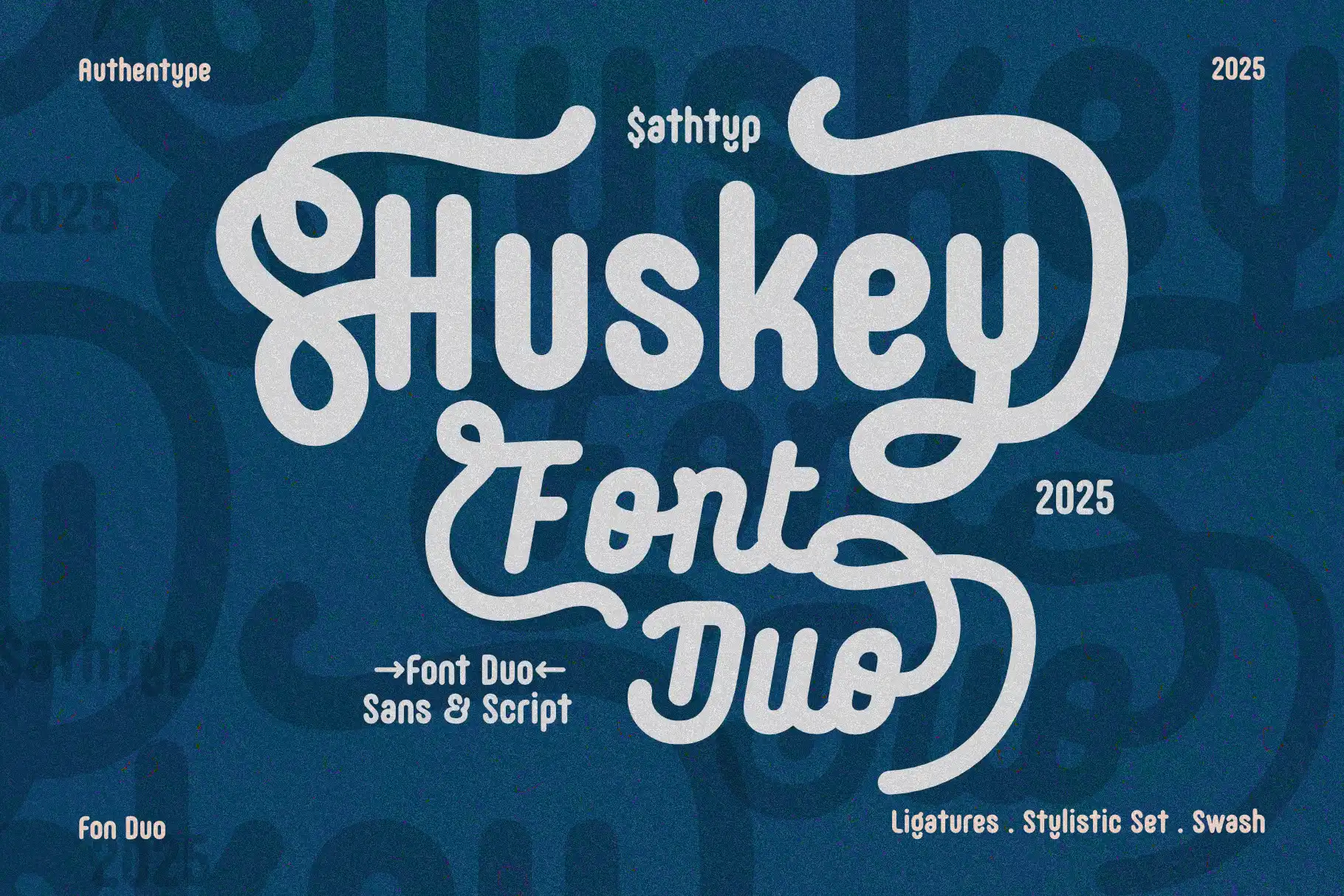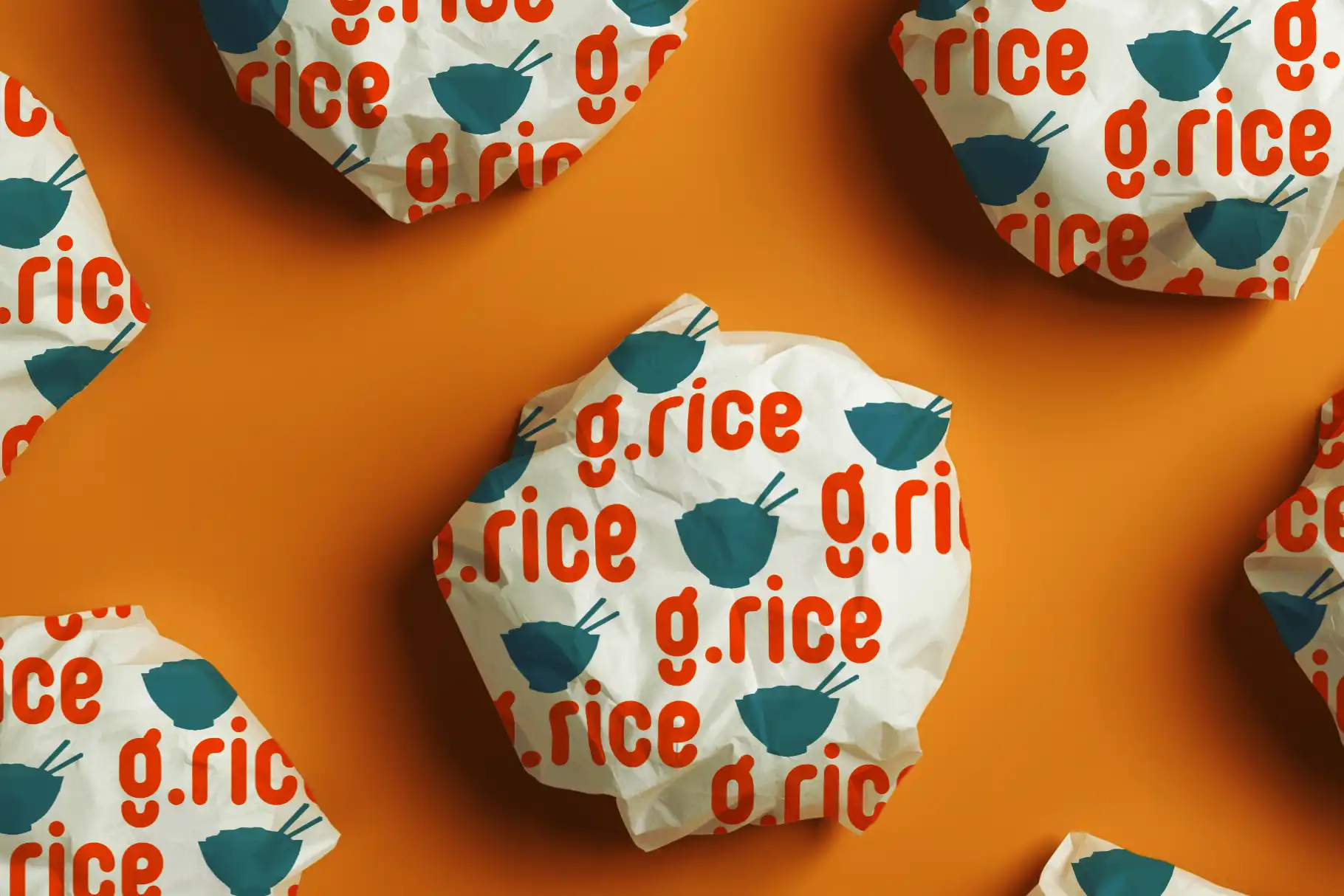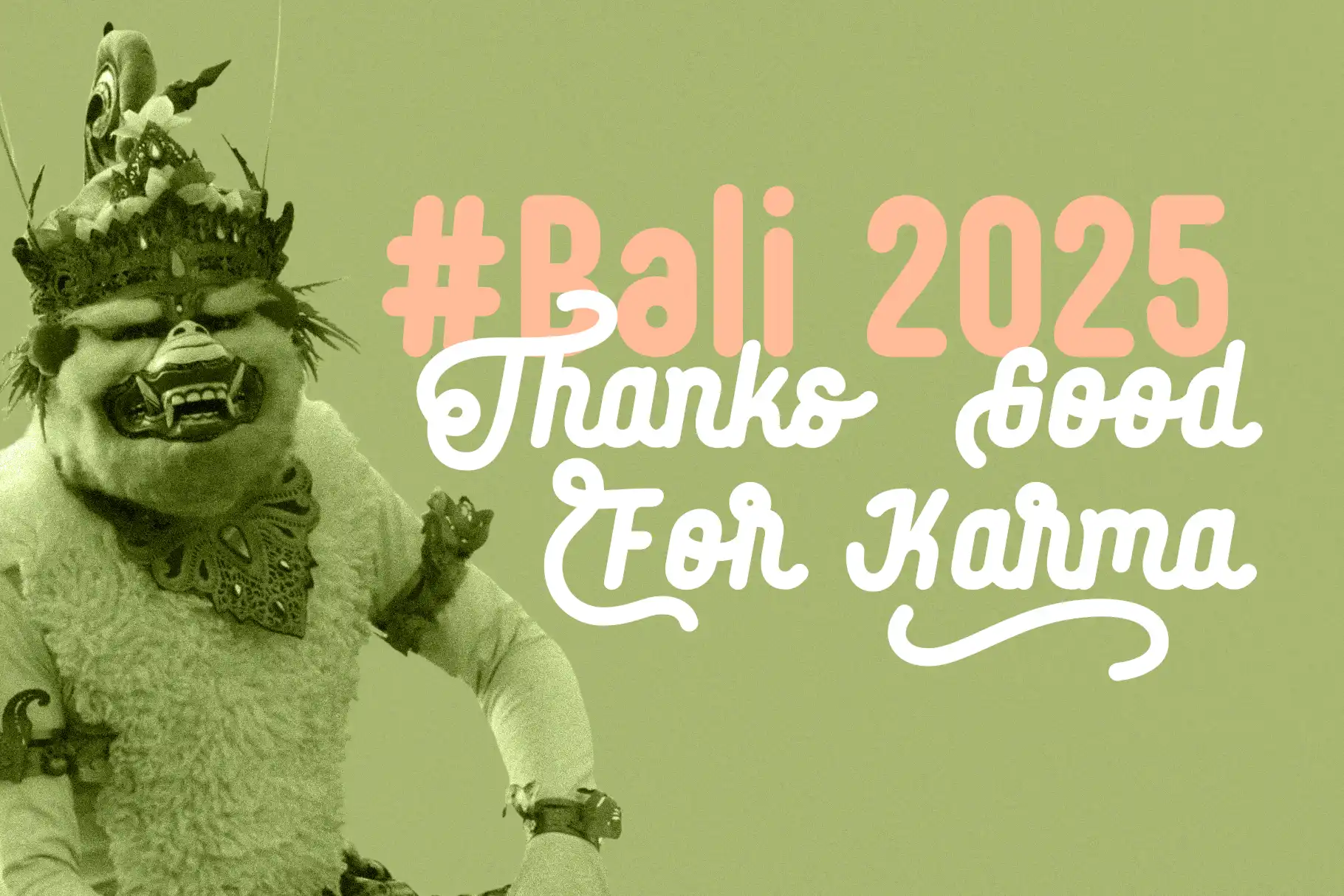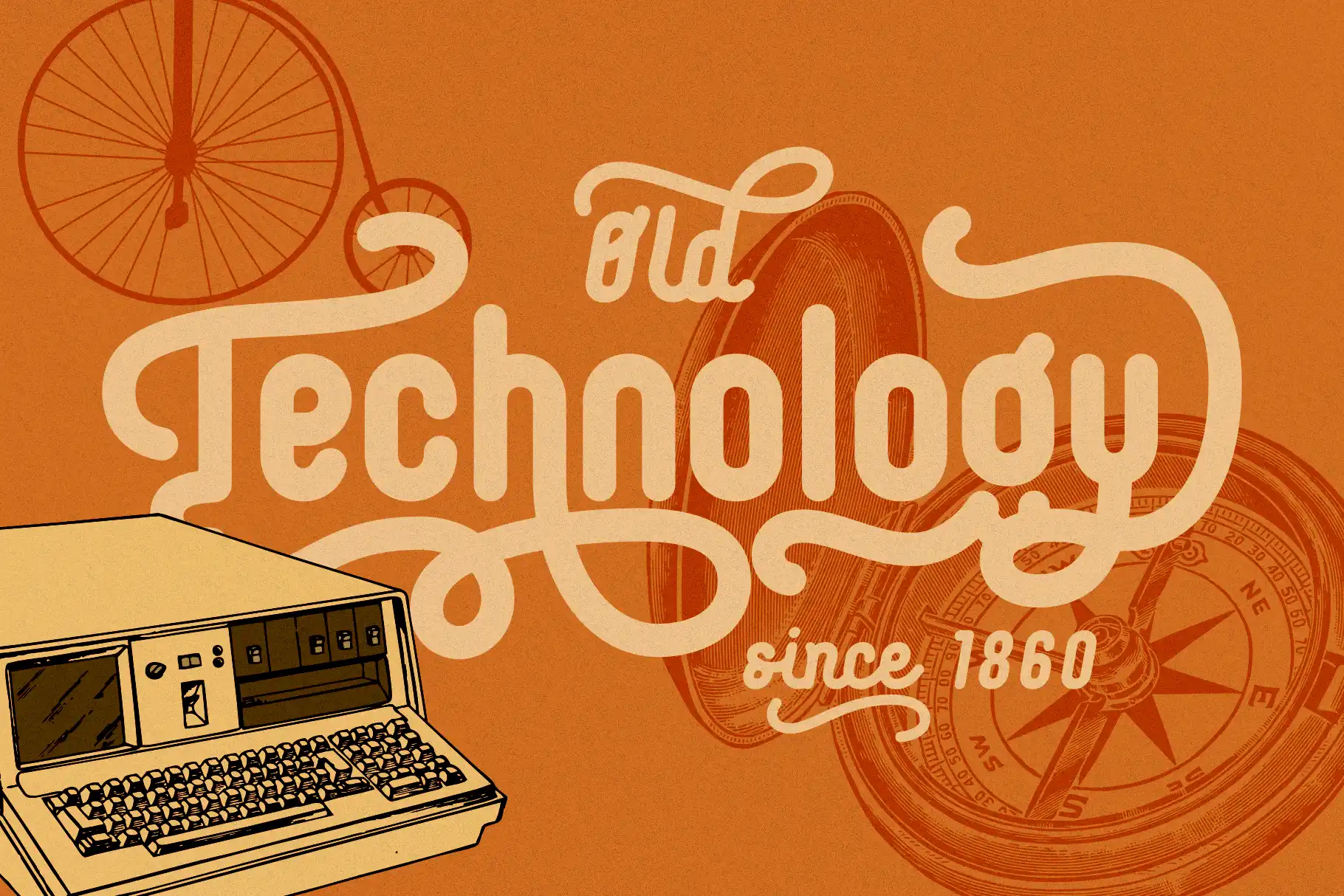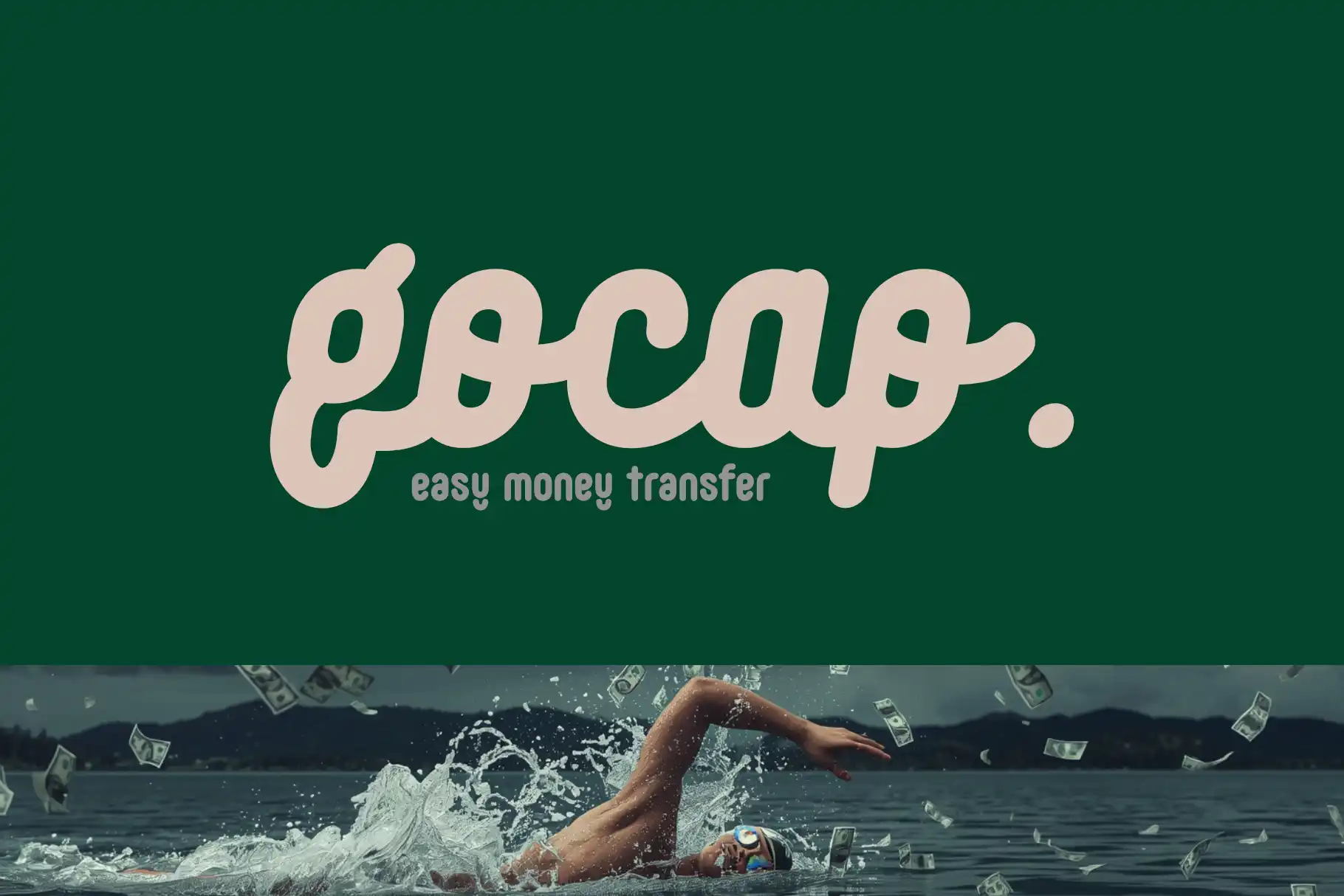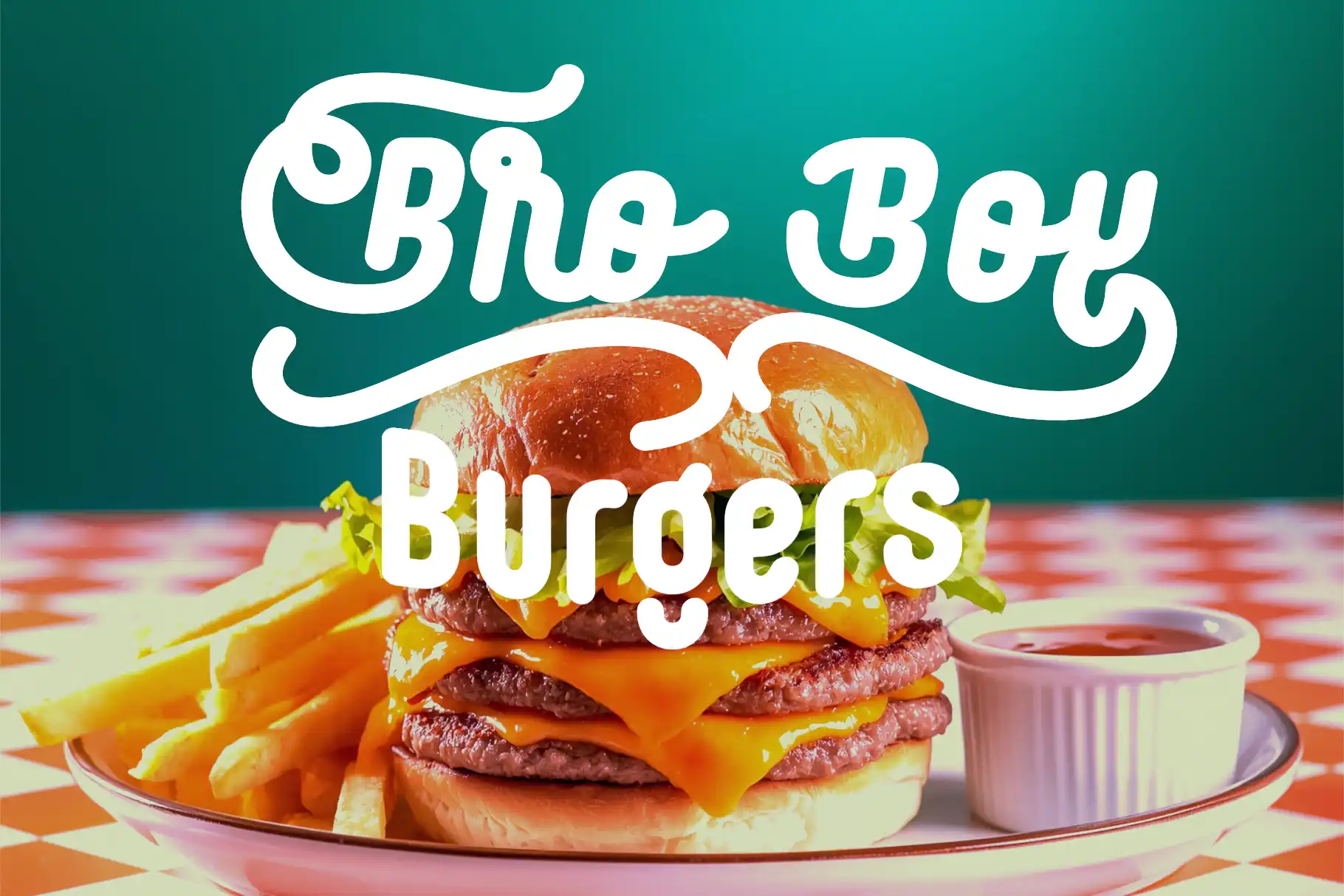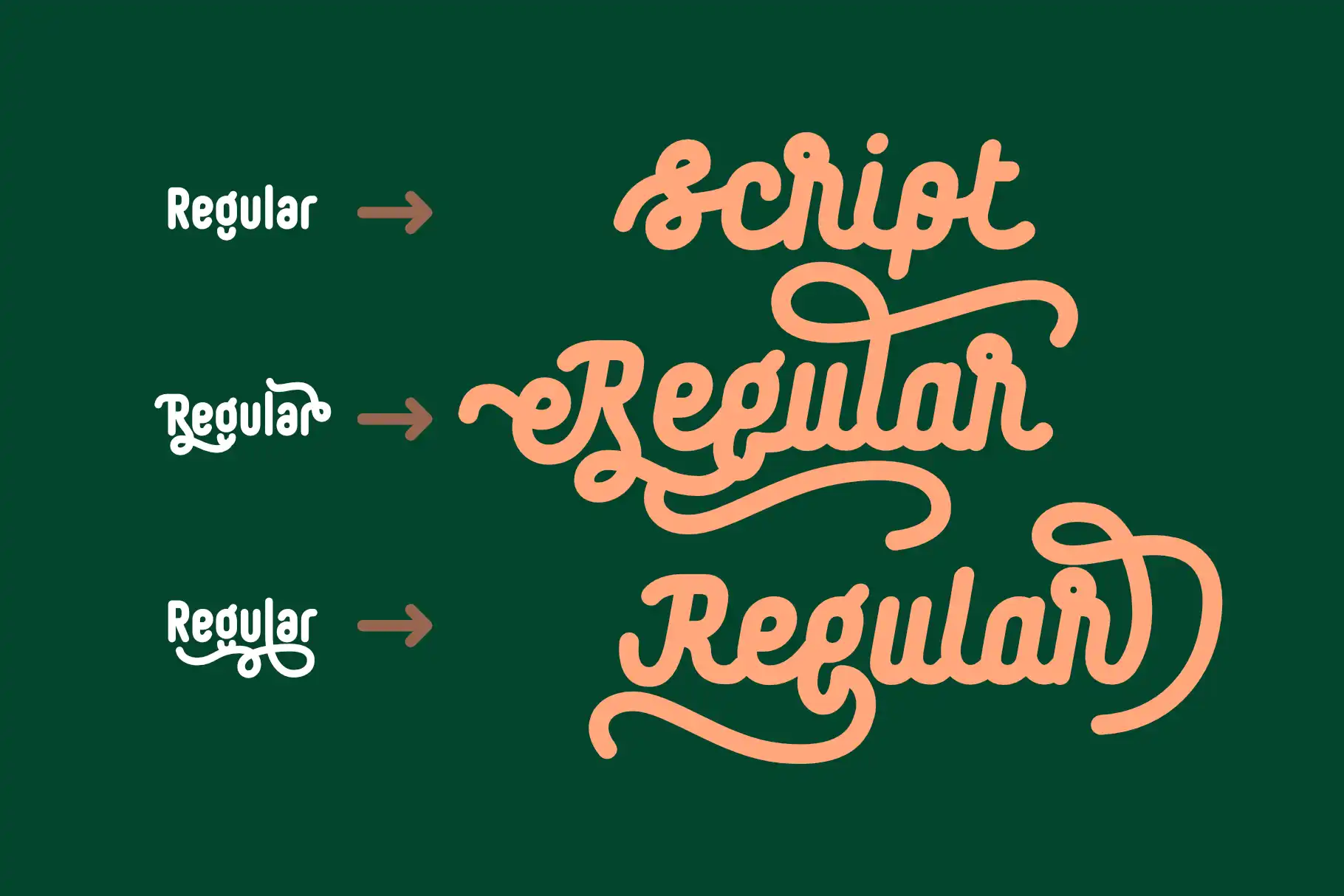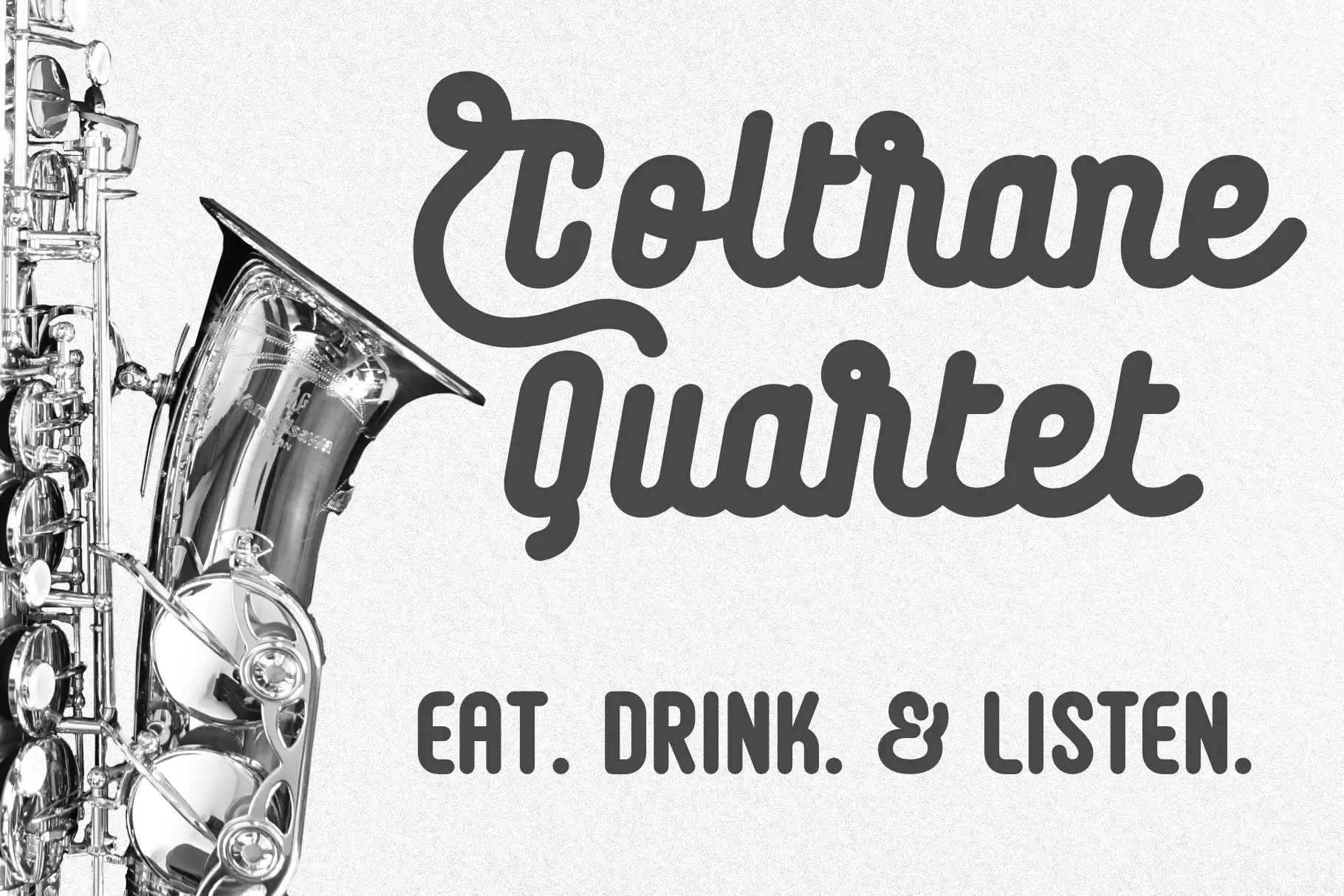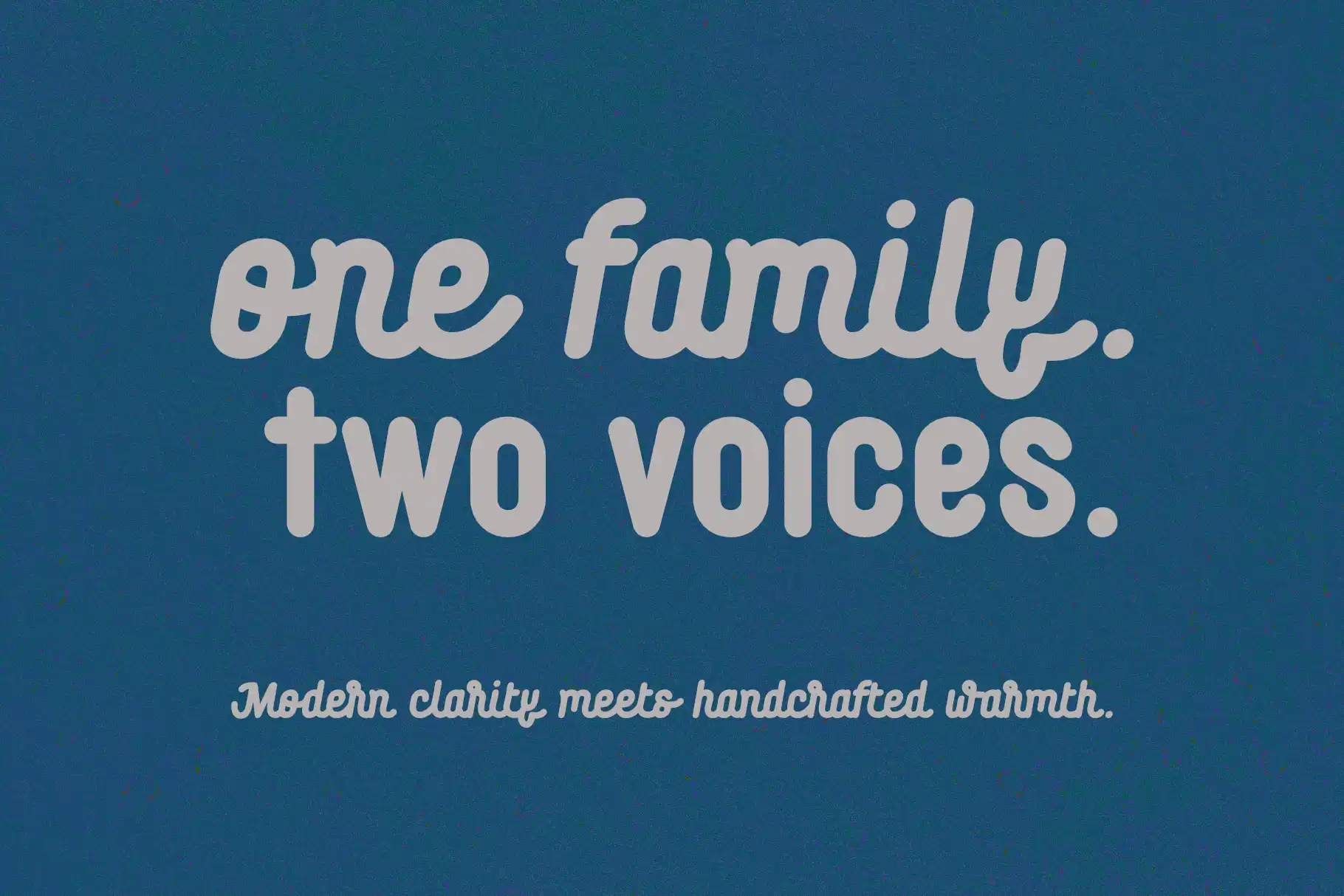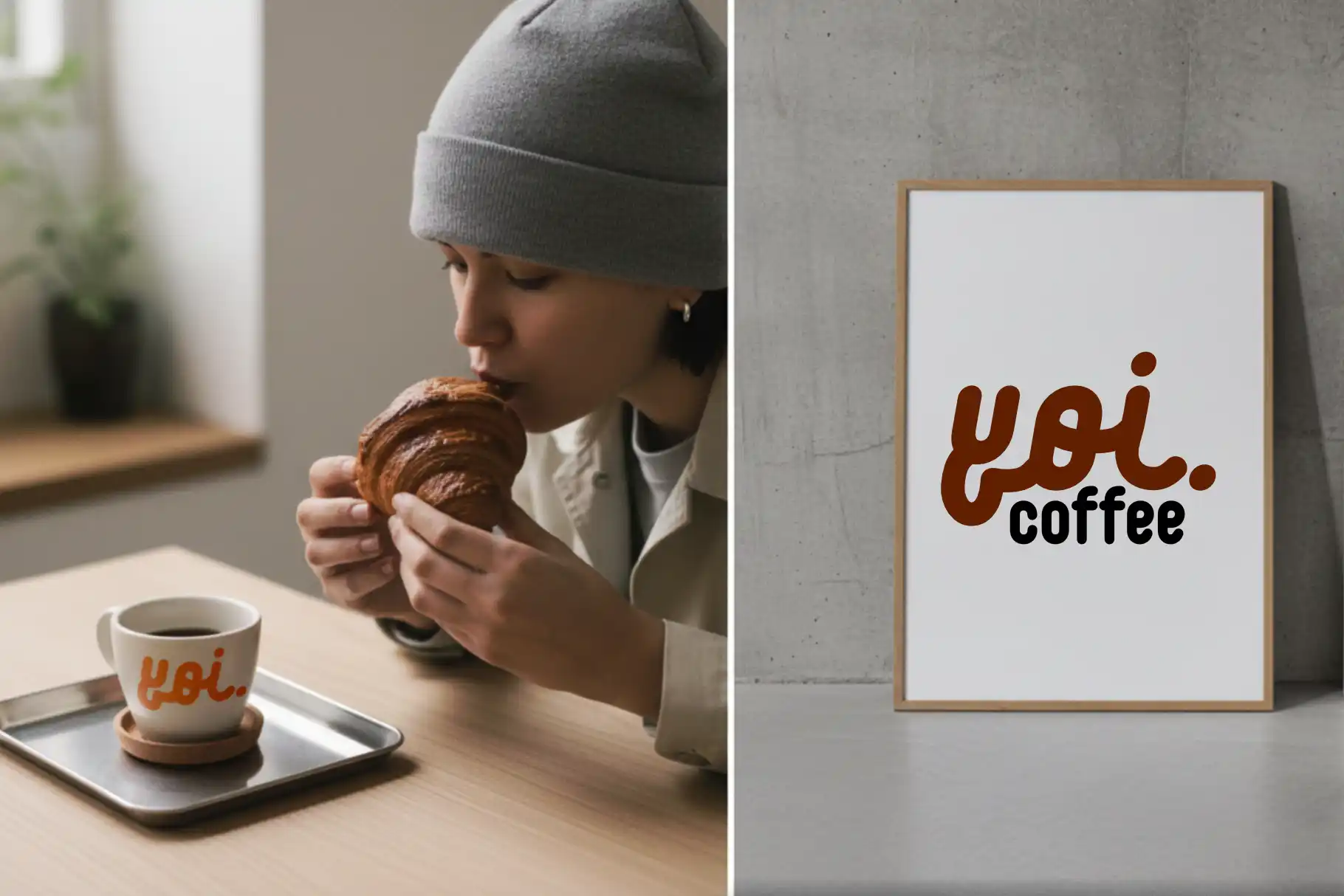
Huskey — Font Duo Sans Script
Huskey font A modern dual-style type system designed for expressive branding and professional logo font duo applications.
Huskey is a versatile logo font duo combining a clean, modern sans-serif with a warm, handcrafted script. Both styles share the same structural DNA, offering seamless pairing and a unified typographic voice. Designed for brands that need clarity with personality, Huskey performs beautifully across logo systems, packaging, headlines, and editorial layouts. With its balanced construction and intentional harmony, Huskey delivers a cohesive toolkit for contemporary identity design.
What’s Inside the Family
Huskey Sans
A rounded humanist-geometric sans with generous proportions and smooth curve transitions. Built for readability and visual comfort, it delivers a modern, friendly tone suitable for both display and small applications—making it an ideal foundation for any logo font duo workflow.
Key Features:
Open apertures for improved legibility
Balanced curve tension and minimal contrast
Optimized metrics for clean spacing
Ideal for branding, UI, and editorial design
Huskey Script
A refined script crafted from the same structural skeleton as the Sans, ensuring consistent rhythm and optical harmony. Expressive yet controlled, it adds a human touch without overpowering the layout—perfect for logotypes, signature marks, and expressive brand moments.
Key Features:
Contextual alternates & stylistic ligatures
Smooth connections and subtle stroke modulation
Designed for display use
Harmonized baseline for perfect pairing with the Sans
Extensive OpenType features (alternates, ligatures, swashes)